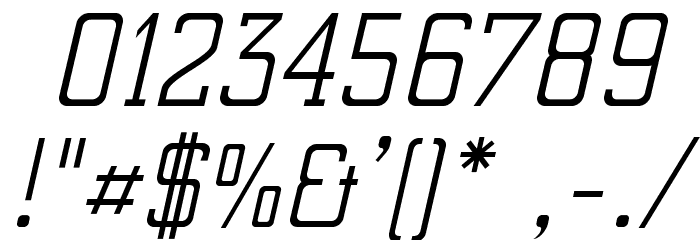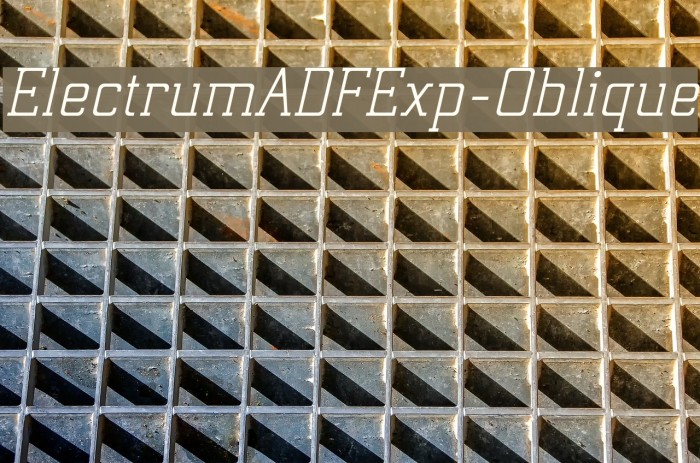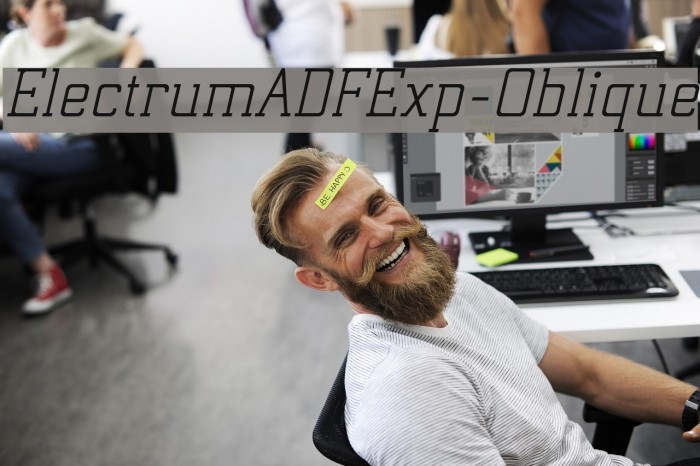
ElectrumADFExp-Oblique Font
This font features a modern, oblique style with a distinctive slant that gives it a dynamic and forward-moving appearance. The characters are sleek and elongated, with a consistent stroke width that provides a clean and uniform look. The uppercase letters are bold and commanding, while the lowercase letters maintain a smooth and flowing form. The numerals are clear and easily distinguishable, making them suitable for various applications. The special characters are well-integrated, complementing the overall aesthetic of the font. This typeface is ideal for projects that require a contemporary and professional touch.
A modern, oblique font with sleek, elongated characters and consistent stroke width.
- Proposed Projects: Ideal for branding, advertising, digital media, and editorial design projects.
- Use Case: Headlines, Logos, Digital Media